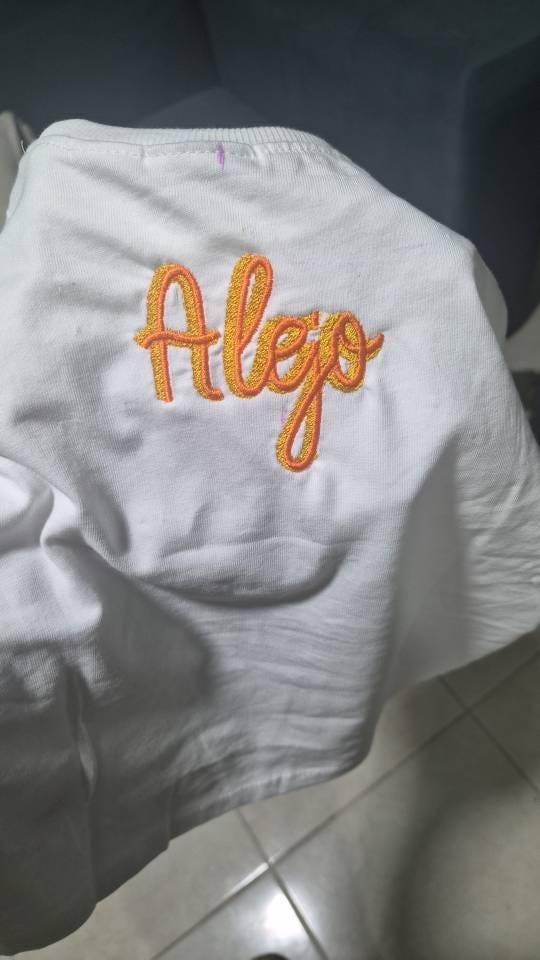
Handwritten script Shadow Font fill stitch double 2 color alphabet letters monogram machine embroidery designs sizes 1.7 up to 4.6 inch
Whole alphabet A-Z uppercase and lowercase letters, numbers 0-9, and punctuation.